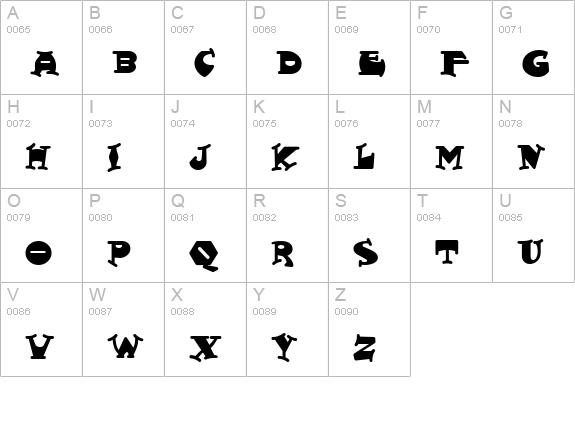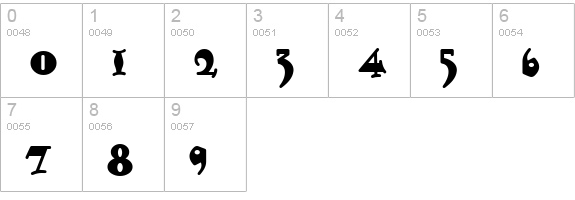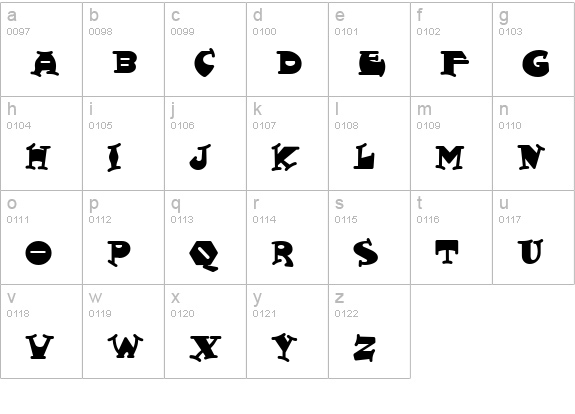
FattySnaxNF Font Details
FattySnaxNF font is a whimsical and playful typeface that exudes a sense of fun and lightheartedness. With its chubby and rounded letterforms, this font is perfect for adding a touch of cheerfulness to your designs. Whether you're creating invitations, posters, or branding materials, FattySnaxNF will bring a smile to your audience's face. What's even better is that FattySnaxNF is available for free download at FontsMarket.com. You can add this delightful font to your collection without any cost, making it a must-have for any designer looking to inject some personality into their projects. With its unique charm and accessibility, FattySnaxNF is sure to become a favorite in your typography toolbox.